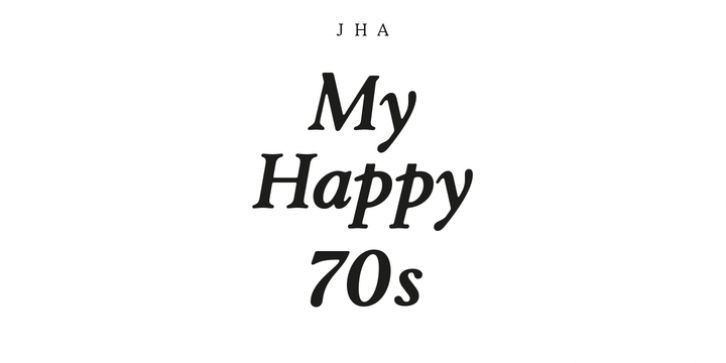
JHA My Happy 70s was designed by Jan-Henrik Arnold and published by JHA. JHA My Happy 70s contains 8 styles and family package options.
My Happy 70s has its roots in the baroque, yet is influenced by the type design of the following centuries. The type took formal elements and subtle spatial references from this time span but the main character remains true to its origin. Examples printed from metal type in this era reveal an enlargement of the curvature of the font which back then was caused by the flow of ink and the process of stamping. The resultant friendly look-and-feel of My Happy 70s is transferred and reinforced in the italic lending a spy affirmation to the here and now.